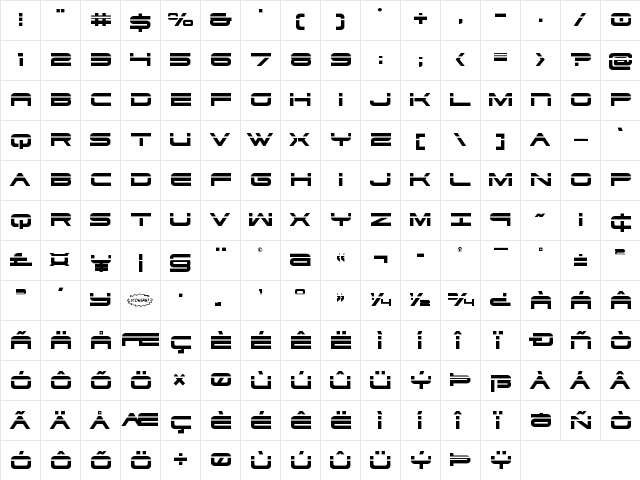
Dodger Laser Regular
Design Context for Dodger Laser Typeface
Dodger Laser is a composed and adaptable typeface that performs quietly and consistently across a wide range of design contexts.